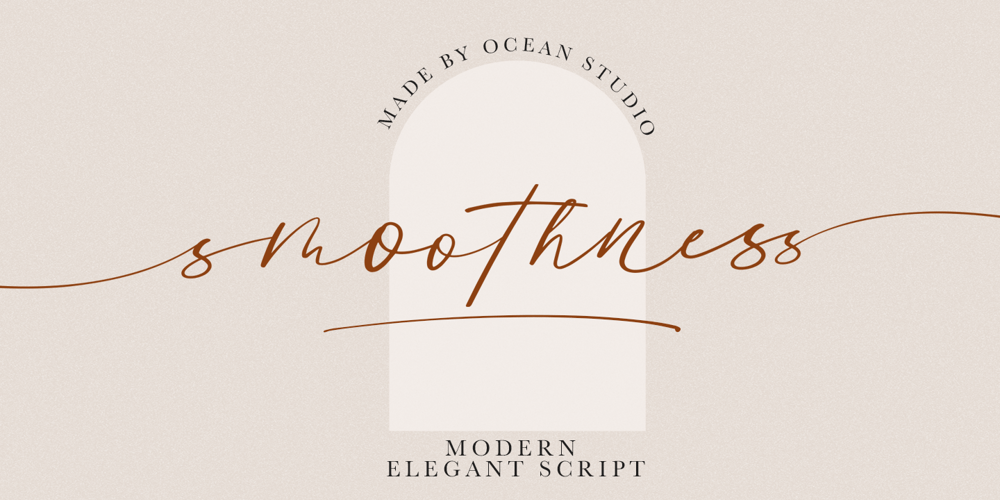
Smoothness
Smoothness font
Smoothness Font Family was designed by Laire Banyu and published by The Ocean Studio. Smoothness contains 1 styles and family package options. Hello for our first debut on MyFont “Smoothness” is a modern script font. Smoothness is a gorgeous organic handwritten and that looks stunning in just about every works.With Full Multilingual support.well-suited for advertising, branding, logotypes, packaging, titles, headlines and editorial design. Enjoy with Smoothness font. Cheers!Note : this helps you to use all of our font functions To get Special Characters like Our Preview Image · Adobe Photoshop go to Window – glyphs· Adobe Illustrator go to Type – glyphs You can get special characters by access Character Map for Windows user, and Font Book for MAC user. Download tutorial below :How to Access special characters, You can Download the link for Support you :http://www.mediafire.com/file/o3sml68hxp6h6yd/Access_Spesial_Characters.pdf/fileThis is information and tutorial how to use ligatures in Adobe Illustrator, Adobe Photoshop, Microsoft Word (Windows and Mac). And Enable alternates characters in other apps. Download the guide here :http://www.mediafire.com/file/edm9sjjwx9g1vi2/How_to_Active_Ligature.pdf/fileif you get a trouble on our font kerning :http://www.mediafire.com/file/9e0q5sjzx97e06m/how_to_slove_trouble_kerning.pdf/file Includes· OTF File· TTF File· Beginning and Ending Characters· Ligatures· Numbers + punctuation· International Languange